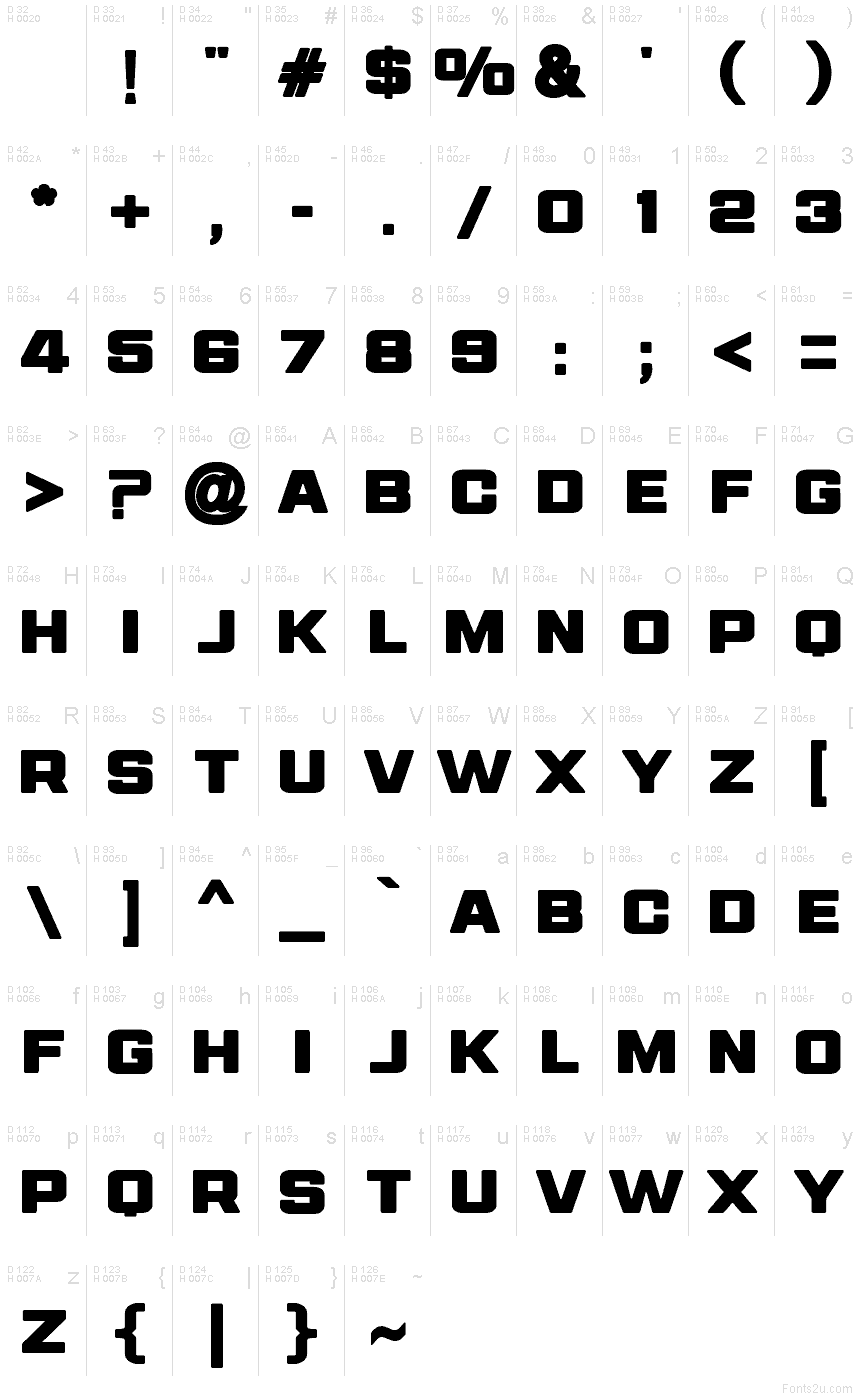
FULLDOZER Extra Bold
Elegance in Simplicity: While bold, FULLDOZER maintains an inherent elegance through its sleek and minimalist design. Each letter is carefully crafted to strike the delicate balance between strength and sophistication.
Mahir Huseynov